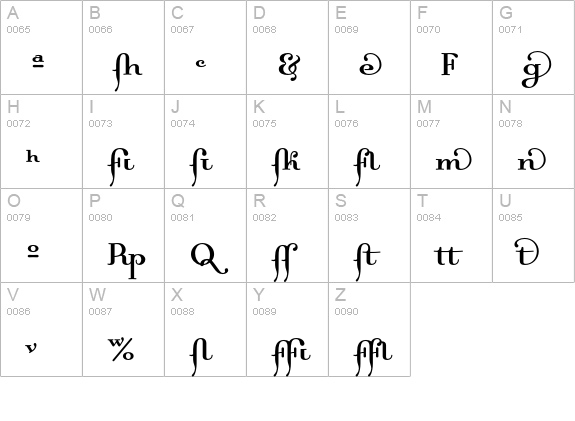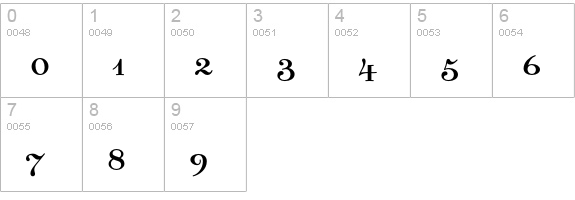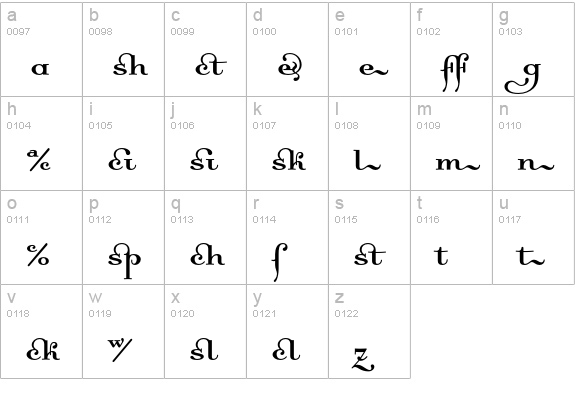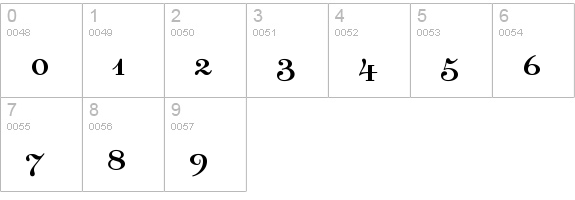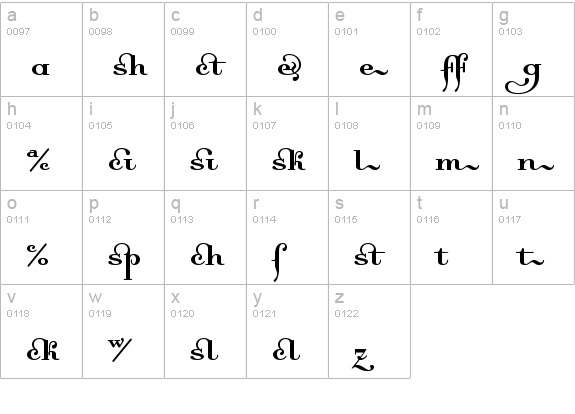
DallianceRomanLigatures Font Details
DallianceRomanLigatures font is a beautifully crafted typeface that exudes elegance and sophistication. With its intricate ligatures and exquisite detailing, this font is perfect for adding a touch of timeless beauty to any design project. Each letterform in DallianceRomanLigatures font has been meticulously designed to create a seamless flow and harmonious balance. The ligatures, in particular, add a unique touch, allowing for a more fluid and visually pleasing reading experience. This font is versatile and can be used in a wide range of applications, from invitations and wedding stationery to logo designs and branding projects. Its classic yet contemporary aesthetic will instantly elevate any design, giving it a touch of refinement and style. One of the most appealing aspects of DallianceRomanLigatures font is that it is freely available to download at FontsMarket.com. This means that designers and enthusiasts alike can easily access and utilize this stunning font without any restrictions. Whether you're a professional designer or a hobbyist, this font is a valuable addition to your font library. So, if you're looking for a font that combines elegance, versatility, and the freedom to use it in your projects, look no further than DallianceRomanLigatures font. Download it today from FontsMarket.com and unlock its full potential. Add that extra touch of sophistication to your designs and watch them come to life with this stunning and freely available font.